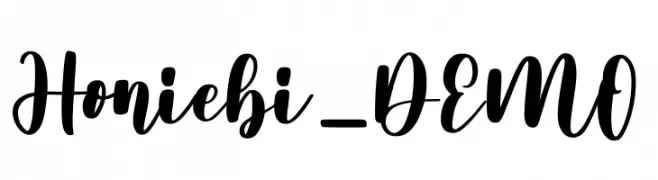
A bold, flowing script font with elegant, interconnected letters.
A flowing, cursive script font with elegant, interconnected strokes.
A bold, elegant cursive font with high contrast and flowing style.
A lively and elegant script font with fluid, connected letterforms.
A graceful script font with elegant, flowing letters reminiscent of classic calligraphy.
A dynamic and expressive script font with fluid, cursive strokes.
A bold, expressive script font with flowing cursive letterforms.
A lively, handwritten script font with medium contrast and elegant flourishes.
A graceful and sophisticated script font with flowing, interconnected letters.